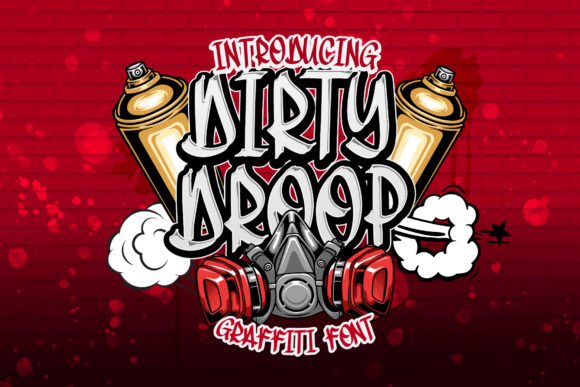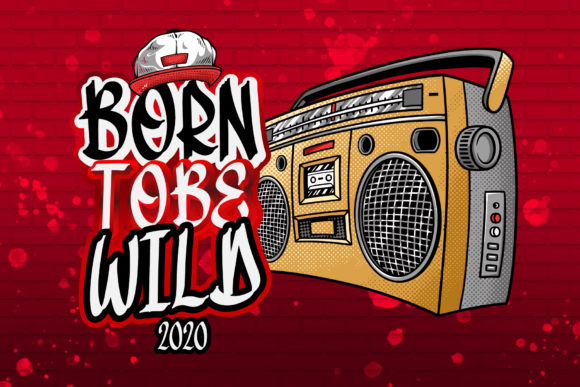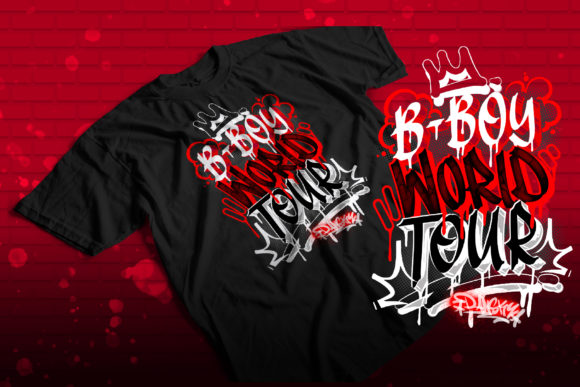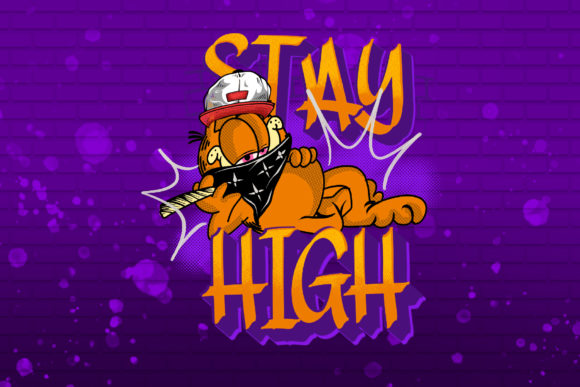
Dirty Droop Font: A Bold Graffiti Display Font for Creative Designs
About the Dirty Droop Font
We are excited to introduce Dirty Droop Font, a must-have typeface for any serious designer. Dirty Droop is a bouncy and quirky display font. It will add a fresh and contemporary touch to your designs. Add this unique display font to each of your creative ideas and notice how it makes them stand out!
Dirty Droop’s playful energy makes it ideal for headlines, short taglines, and branding elements where a quirky, youthful feel is desired. It excels in posters, social media graphics, and packaging for products targeting a younger demographic. However, its highly stylized forms make it unsuitable for body text or UI elements requiring high readability.
Consider pairing Dirty Droop with a clean sans-serif like Open Sans for balance, or a classic serif like Garamond for a sophisticated contrast. A geometric sans-serif, such as Futura, could also work well, providing a modern counterpoint to Dirty Droop’s bouncy character.
The font’s overall personality is best described as bold and playful, yet undeniably contemporary. It’s perfect for brands seeking to convey a fun, approachable, and slightly rebellious image.
Dirty Droop Font Usage Examples
Dirty Droop Font Example